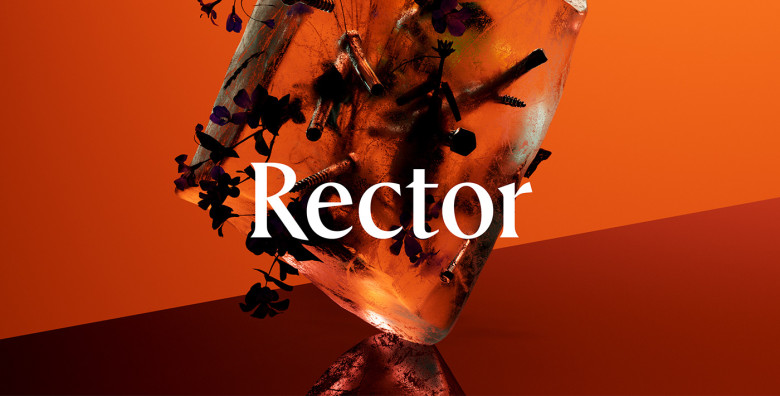
Rector Font
Rector is a typeface with volume!  A subdued serif with an extralight weight that gives an air of elegance, it makes Rector an eye-catcher in blackweight form – truly an eye-catcher! Hairline sans and outline styles to create headline alternatives are included here, along with five weights, italics and so forth to add variety.
Their distinctiveness lies in organic yet precise shapes. Broad nib features that lean into their pixel canvas make Rector more stout and sharp while remaining contemporary and vocal. Rector was created by Hrvoje Zivcic as an engraved serif font, with clues to stone carving and massive letters present throughout its styles for display.
Rector has 16 styles in total with more edgy styles like its “quasi-sans” Hairline as well as its “duoline” outline adding flair.
Rector Serif Font Family